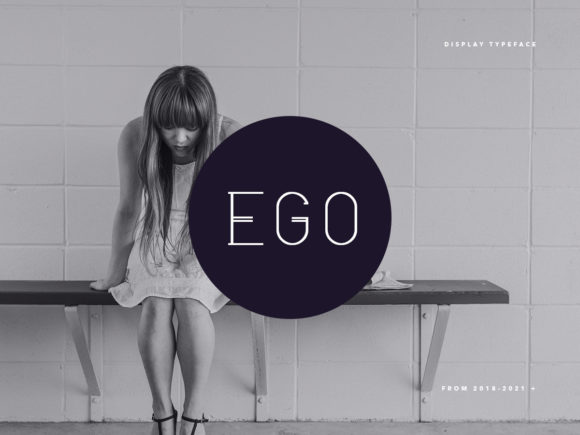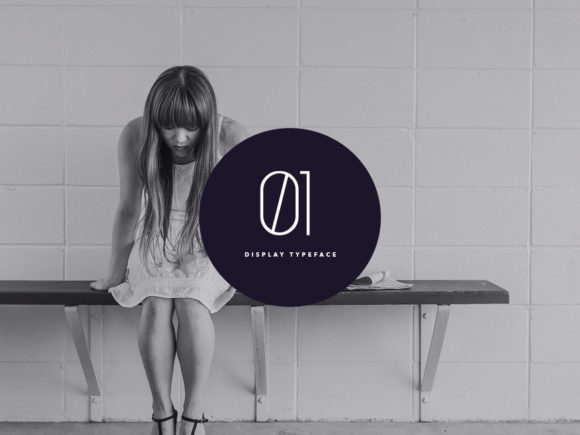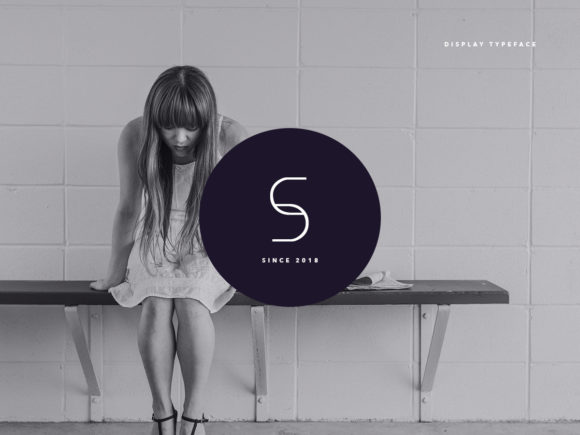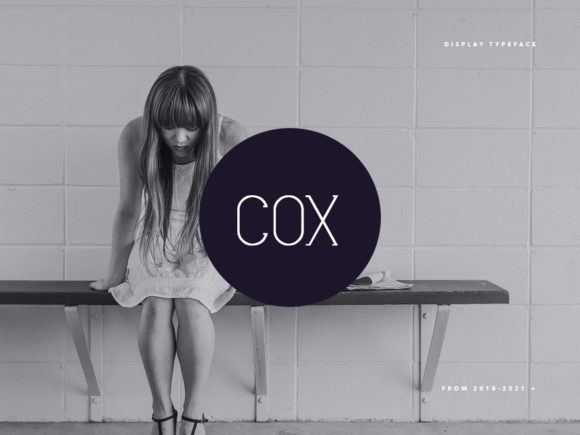
Ego
Ego: A Modern and Graceful Slab Serif Font
Ego is a distinctive slab serif font that combines modern design with elegance and charm. This typeface offers designers a sophisticated tool for creating impactful typography across a wide range of exquisite projects and designs.
Key Features of Ego
• Modern Design: Features contemporary elements that align with current design trends.
• Tall and Slim Letters: Offers an elongated, slender appearance that exudes gracefulness.
• Slab Serif Structure: Incorporates the characteristic thick, rectangular serifs typical of slab serif fonts.
• Charming Aesthetic: Inspires a sense of sophistication and allure.
• Versatile Application: Suitable for a variety of exquisite projects and designs.
Font Details
Additional information about Ego[3]:
• Available in 3 different styles: Normal, Outline, and Retro
• Best for creating modern logos, promotional content, and marketing graphics
• Ideal for branding, logotypes, headlines, and display usage
Ideal Uses for Ego
Ego’s unique characteristics make it particularly well-suited for:
• High-end branding and logo design
• Elegant editorial layouts and magazine covers
• Sophisticated packaging design
• Stylish website headers and digital content
• Luxury product marketing materials
When incorporating Ego into your designs, consider the following tips:
• Use for headlines or short blocks of text to maximize its graceful impact
• Experiment with different sizes and styles to create visual hierarchy
• Take advantage of its modern nature in projects where you want to convey sophistication and charm
Ego is an excellent choice for designers looking to add a modern and graceful slab serif font to their typographic toolkit. Its ability to inspire elegance makes it stand out in the world of typography. Whether you’re working on high-end branding, creating layouts for luxury publications, or developing sophisticated marketing materials, Ego offers the perfect blend of modernity and charm.
Add Ego to your most exquisite projects and explore how it can elevate your designs with its tall, slim letters and graceful aesthetic. From striking headlines to elegant branding elements, this font provides the tools to create impactful and memorable typography that exudes sophistication.